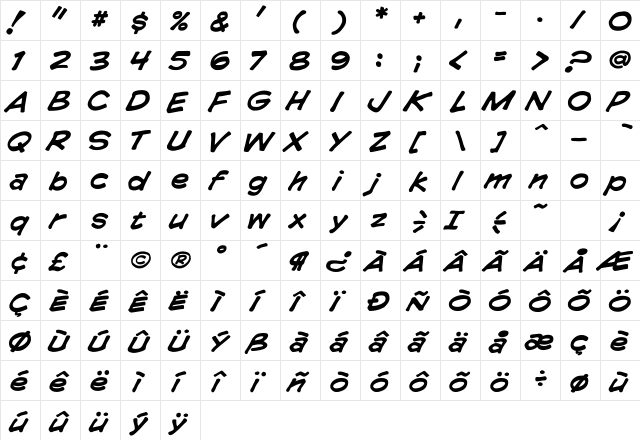
CCComicrazy BoldItalic
Design Context for CCComicrazy Typeface
CCComicrazy trades formality for fun, with bouncy, characterful letterforms that bring warmth and energy to any project. Its italic angle brings a sense of urgency and motion to the letterforms.
Well-suited to food and beverage brands with personality, educational materials, and fun-forward identities.
Font Pairing: Pairs well with a rounded or humanist sans for body copy, maintaining the friendly tone without relying on CCComicrazy to carry extended reading.
Pro Tip: Use CCComicrazy at larger display sizes where its expressive character can land. Pair with a clean, simple sans for body copy to maintain readability.